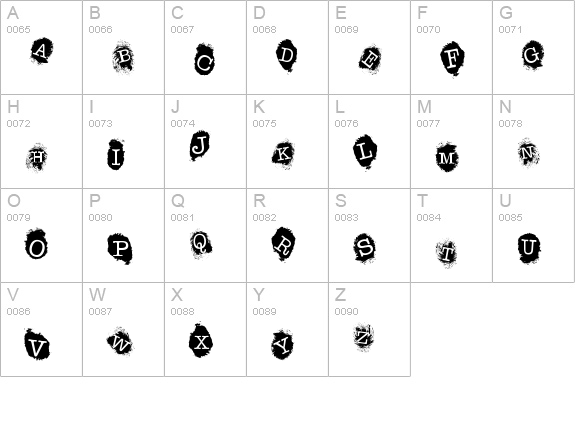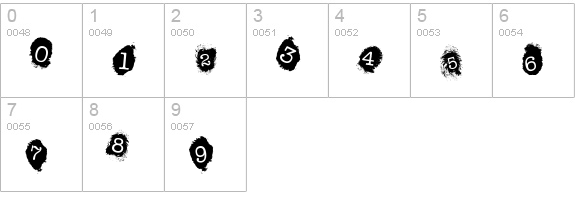
Fingerprints Inside Font Details
Fingerprints Inside font is a unique and intriguing typeface that perfectly captures the essence of individuality and personal touch. With its distinct fingerprint-like patterns embedded within each character, this font delivers a sense of authenticity and originality to any design project. The intricate details and artistic flair of Fingerprints Inside font make it a versatile choice for a wide range of creative applications, from branding and advertising to packaging and editorial design. Best of all, Fingerprints Inside font is available for free download at FontsMarket.com, making it easily accessible for designers and creatives looking to add a touch of personality to their work. Whether you're working on a poster, website, or logo, this font is sure to make a lasting impression with its one-of-a-kind style. Embrace the uniqueness of Fingerprints Inside font and bring a fresh, distinctive look to your designs today.